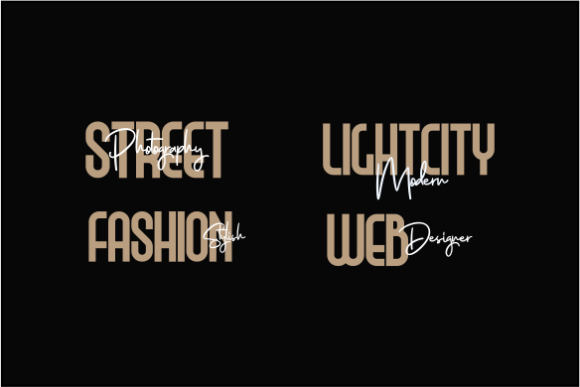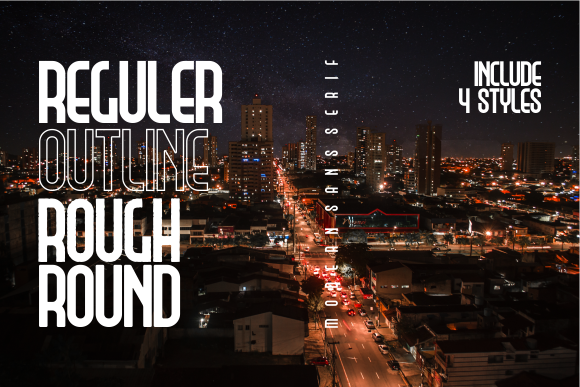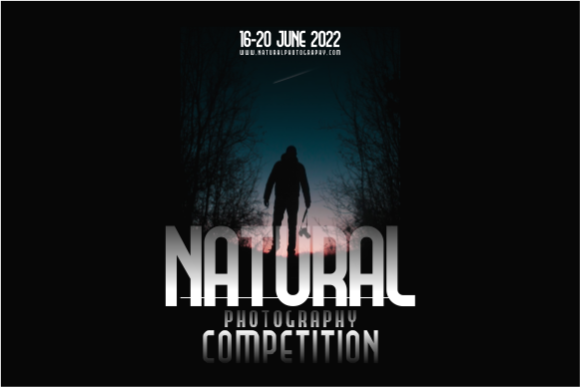
Introduction to Light City Font
The Light City is a sans serif with a modern and sophisticated style.
It’s inspired by today’s modern and sophisticated life, which makes it perfect for things related to modern designs such as websites, posters, print templates, modern logos, and others designs that need a modern sense It has 4 different styles that you can combine, from ordinary styles to curves and lines and rough styles.